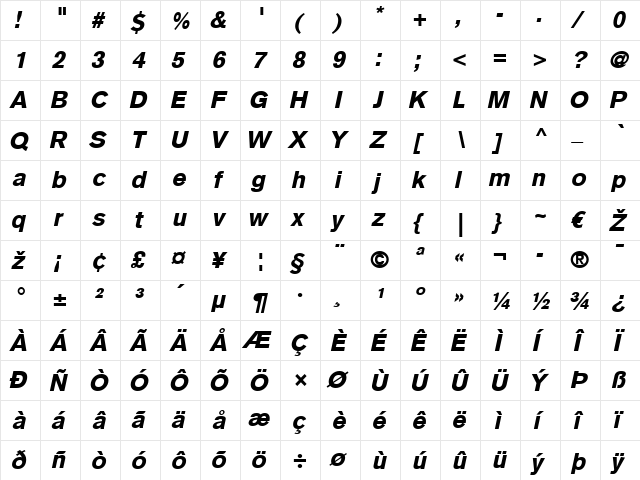
BasicCommercial LT Roman Bold Italic Font Preview
BasicCommercial LT Roman Bold Italic
Design Context for BasicCommercial LT Roman Typeface
BasicCommercial LT Roman is a composed and adaptable typeface that performs quietly and consistently across a wide range of design contexts. Its italic angle brings a sense of urgency and motion to the letterforms. Its bold stroke weight gives it real presence on the page.
Pro Tip: Use BasicCommercial LT Roman for emphasis, pull quotes, and subheadings where its slanted energy can add rhythm to the layout.